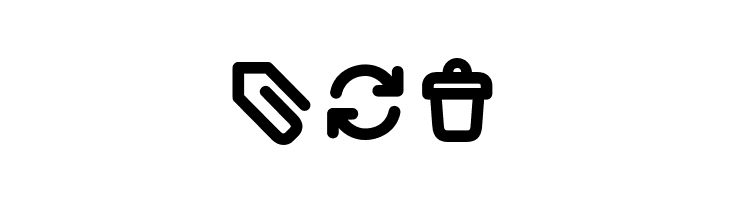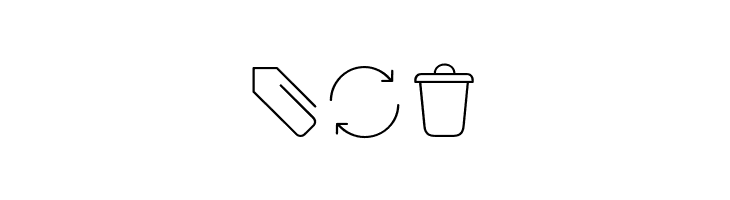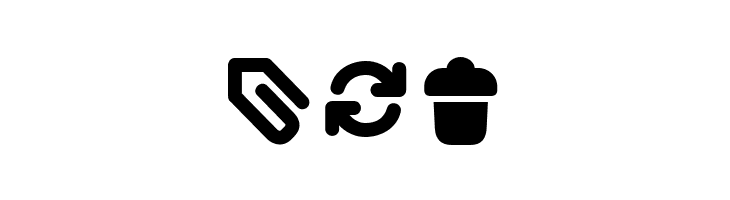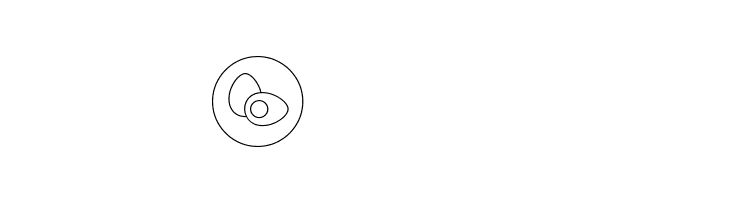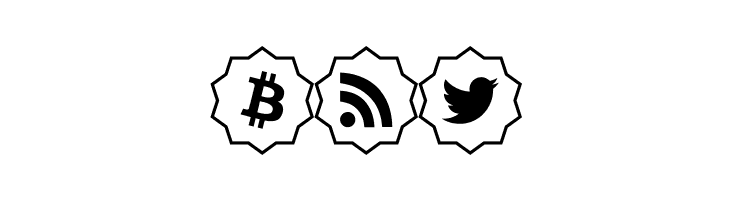
Rounded, semi-bold geometric icon set with modern, clean outlines.
Minimalist, thin-line icon set with geometric shapes and rounded corners.
Minimalist, hairline-weight geometric icon set for UI.
Bold, geometric, and modern icon set with high legibility.
Minimalist, thin-line geometric icon set.
Minimalist, ultra-light geometric line icons.
Hand-drawn, bold icon set with a playful and casual style.
A circuit diagram-inspired decorative font with schematic symbols.